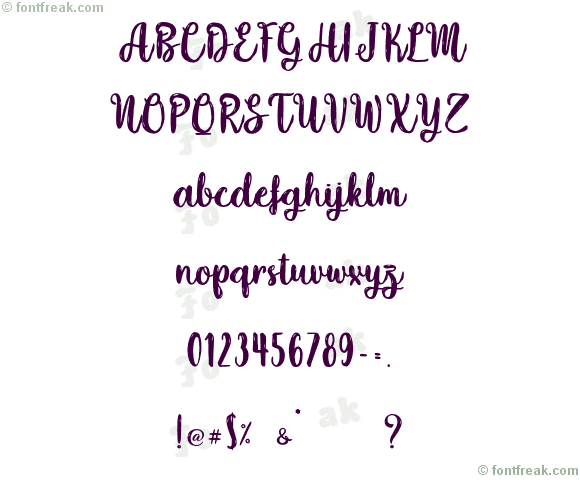
Beefy Soup - Personal Use
About Beefy Soup - Personal Use
Beefy Soup - Personal Use is a delightful display font designed by Suthi Srisopha. This typeface embodies a playful and informal aesthetic, making it an ideal choice for those seeking a fun and approachable style. As a script font, Beefy Soup features smooth, flowing letterforms that evoke a sense of warmth and personality. The strokes are moderately thick, striking a balance between boldness and readability, while the slightly irregular shapes lend an organic feel to the text.
Visually, the font exhibits a charming contrast in stroke weight, enhancing its playful character. The spacing between letters is generous, allowing for easy legibility, which is crucial for various applications. Its unique decorative elements, such as rounded terminals and whimsical curves, create a friendly appearance that captures attention without overwhelming the viewer.
Beefy Soup is perfect for a variety of creative projects. It shines in personal invitations, where its casual nature exudes warmth and friendliness. Additionally, it works wonderfully for restaurant menus, giving a quirky touch that can make dishes seem more inviting. The font's playful style is also well-suited for children's books, providing an engaging and fun reading experience. Graphic designers and content creators will find it ideal for social media graphics, where eye-catching typography can enhance visual storytelling.